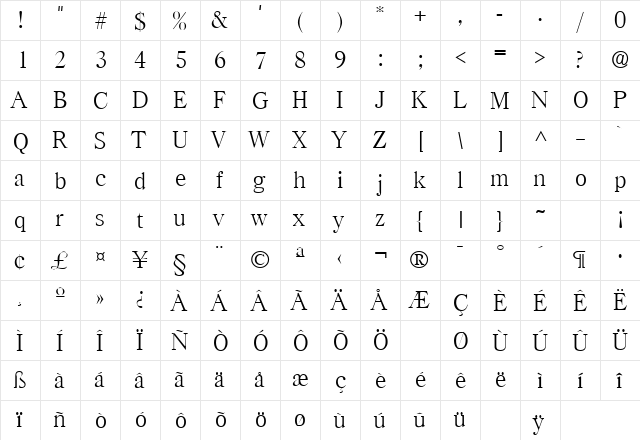
CasadLH Regular
Design Context for CasadLH Typeface
CasadLH is a composed and adaptable typeface that performs quietly and consistently across a wide range of design contexts.